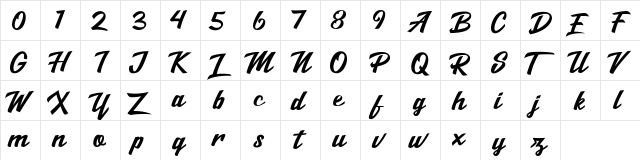
Salikin Regular
Design Context for Salikin Typeface
Salikin is a composed and adaptable typeface that performs quietly and consistently across a wide range of design contexts.